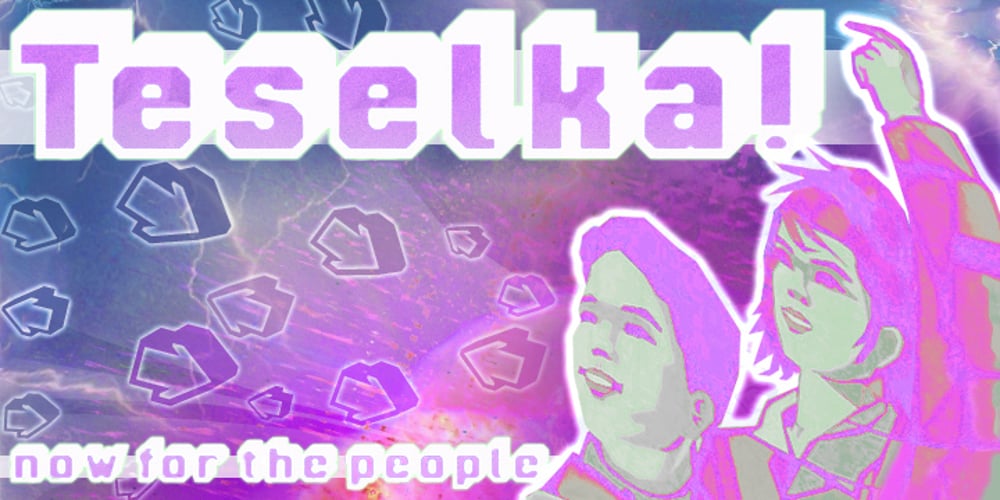
Teselka Font Family was designed by Luke William Turvey and published by Okaycat. Teselka contains 1 styles and family package options. Teselka stands bold with sharp angular distinction. Deep 3D extrudes and thickly styled outlines for high impact. Teselka features extruded arrows (both directions), extended characters, and contains West European diacritics & ligatures. Highly suitable for international environments & publications.